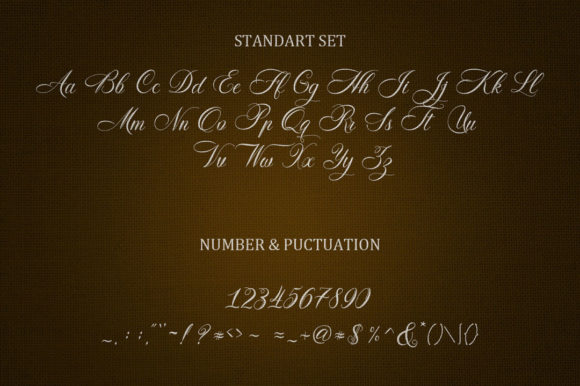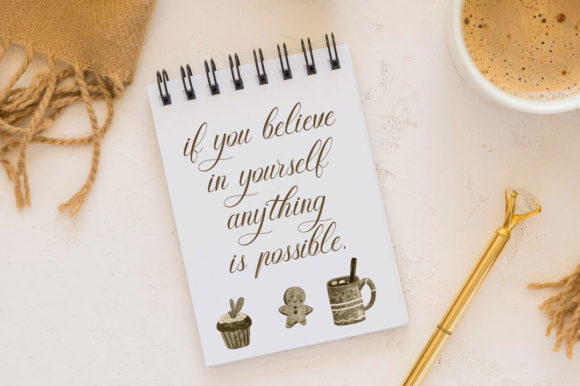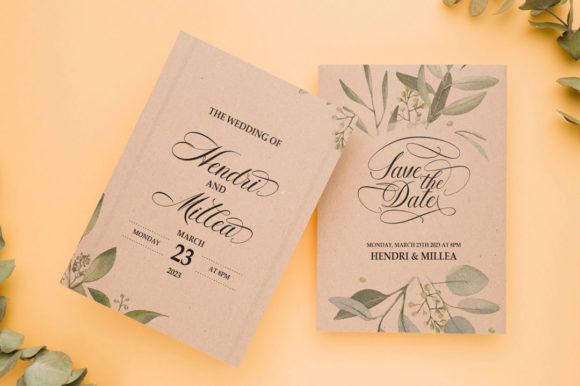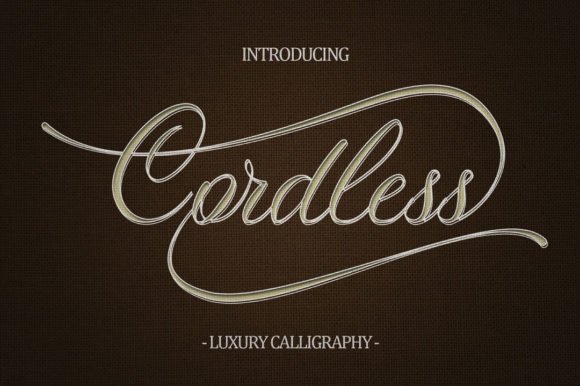
Introduction to Cordless Font
Cordless is a simple, flowing and delicate handwritten font.
You can successfully add this elegant font to your wedding invitations, business cards, greeting cards, product packaging, social media posts, wall art, and more Cordless is PUA encoded which means you can access all of the glyphs and swashes with ease.
Cordless Font offers exceptional quality and versatility, making it a valuable addition to your design toolkit. Whether you’re creating for personal projects or commercial use, Cordless Font delivers professional results.